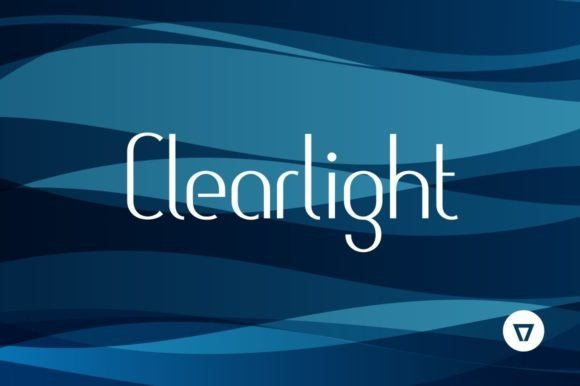
When Design Meets Clarity
Have you ever been on a mission to find the perfect font for your next project, only to be overwhelmed by endless options and design jargon? We’ve all been there. For designers, selecting the right font can be a daunting task, but what if I told you that there’s a typeface that’s about to make your life a whole lot easier?
Meet Clearlight Font, a crisp and simple sans serif display typeface that’s perfect for branding, logos, and products that require a minimal yet elegant identity. With its friendly and approachable vibe, Clearlight Font is ideal for designers who want to create a lasting impression without overwhelming their audience.
Whether you’re a seasoned pro or just starting out, the Clearlight Font is a valuable addition to any designer’s toolkit, offering a unique blend of personality and sophistication that’s sure to elevate your designs to the next level.
Clearlight Font Key Features
- Font Family: Clearlight is a sans-serif font family, designed for clear and readable text in various applications.
- Resolution: Clearlight is designed to be highly legible at high resolutions, making it ideal for digital displays and print materials.
- Unique Characteristics: Clearlight features a unique blend of geometric and organic shapes, resulting in a clean and modern aesthetic.
- Language Support: Clearlight supports a wide range of languages, including Latin, Cyrillic, and Greek scripts, making it a versatile font for global applications.
Designer Review: Clearlight Font
Overall, I think Clearlight Font is a solid choice for digital designs. Here are some things that stand out:
- ✨ Highly legible: Clearlight Font is easy to read, even at small font sizes. This makes it perfect for digital products, such as e-books, websites, and mobile apps.
- ✨ Clean and modern design: The font’s minimalistic design gives it a sleek and modern look that fits well with contemporary design trends.
- ✨ Versatile: Clearlight Font comes in multiple weights and styles, making it suitable for a wide range of design applications.
- ⚠️ Limited expressiveness: While Clearlight Font is great for digital designs, it may not be the best choice for designs that require a lot of personality or flair.
- ⚠️ May not work well for print designs: The font’s digital-centric design may not translate well to print materials, such as business cards or brochures.
Overall, I think Clearlight Font is a great choice for digital designs, but may not be the best fit for every project. With its high legibility and modern design, it’s a solid addition to any designer’s toolkit.
Tips for Getting the Most Out of Clearlight Font
Use Clearlight Font in combination with a clean and simple design to create a professional-looking visual identity. Experiment with different font sizes and colors to add emphasis and hierarchy to your design. Clearlight Font is also versatile and can be used for a wide range of design projects, from logos to brochures.
Clearlight Font is commonly used for:
- Modern and clean-looking graphics
- Professional-looking documents and presentations
- Infographics and data visualizations
Alternatives to Clearlight Font
Lato is a modern sans-serif font that is highly legible and versatile. It’s ideal for use in digital products, such as websites, apps, and software. Lato has a clean and neutral design, making it suitable for a wide range of applications, from body text to headlines. Compared to Clearlight Font, Lato is more modern and has a slightly more geometric feel.
Merriweather is a classic serif font that is highly readable and elegant. It’s suitable for use in print materials, such as books, magazines, and newspapers, as well as digital products. Merriweather has a warm and traditional feel, making it ideal for use in contexts where a sense of history and sophistication is desired. Compared to Clearlight Font, Merriweather has a more traditional feel and is better suited for print materials.